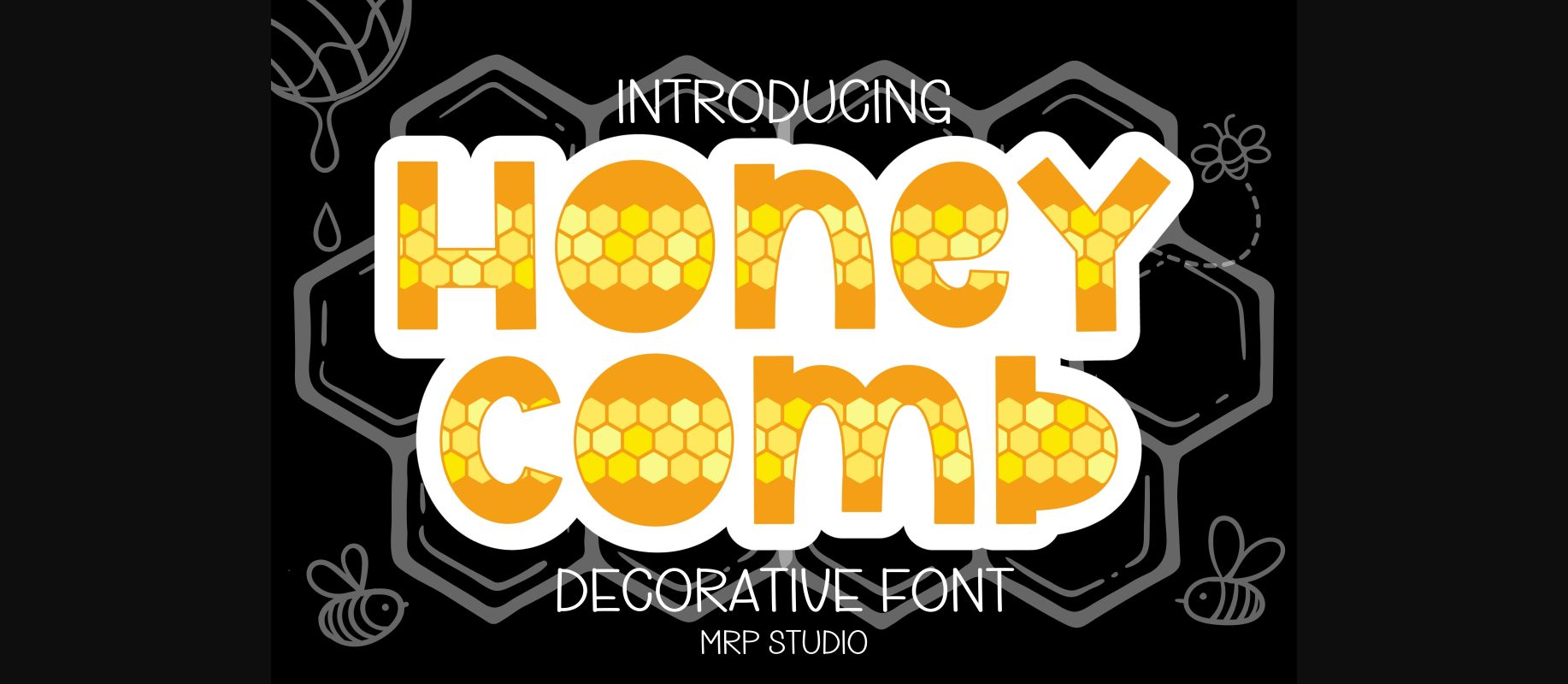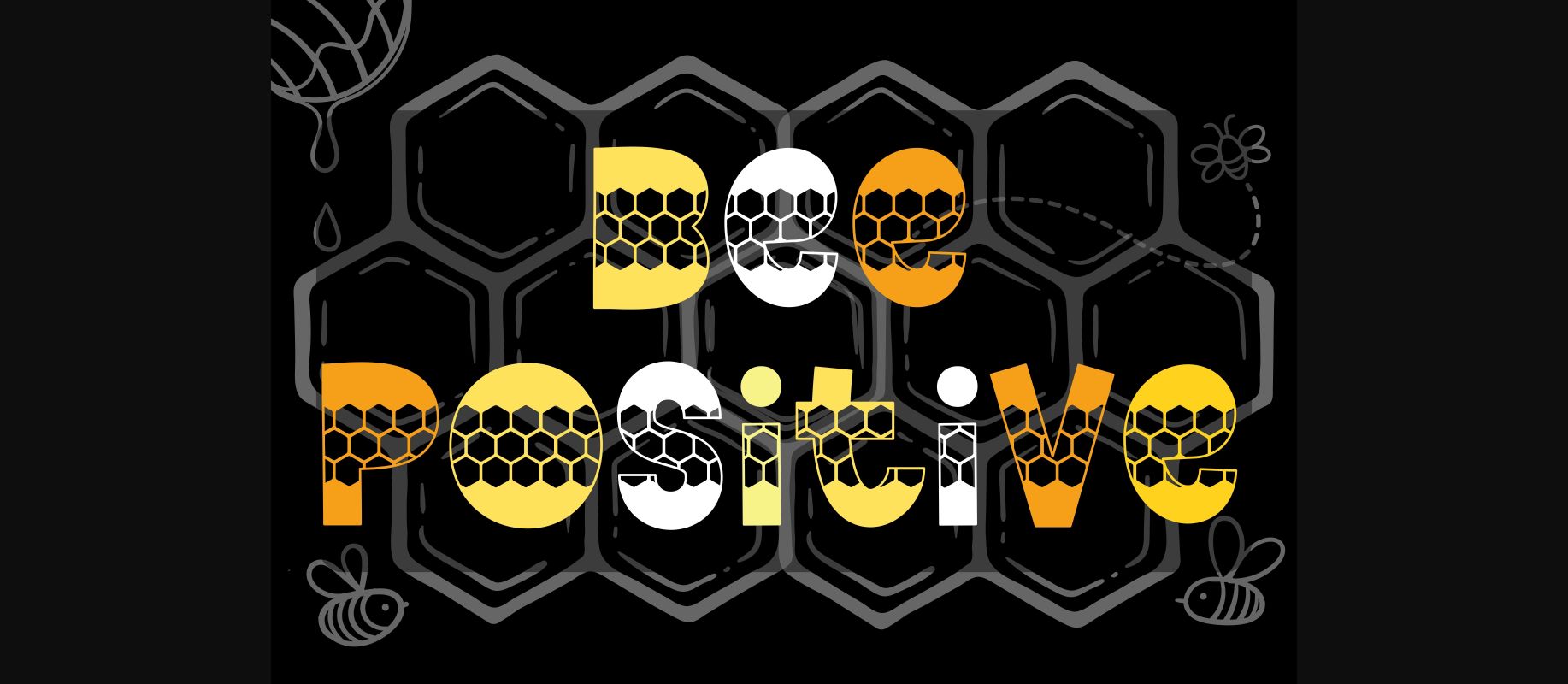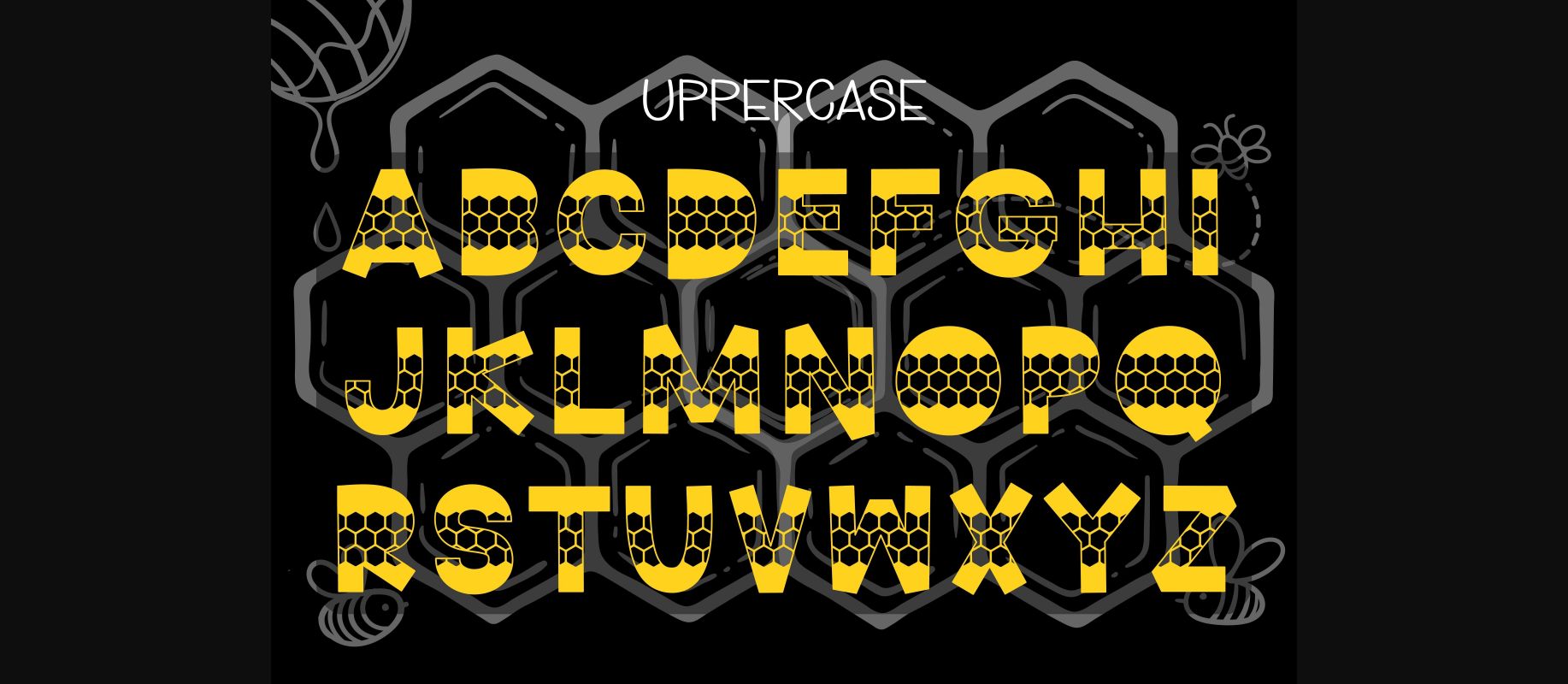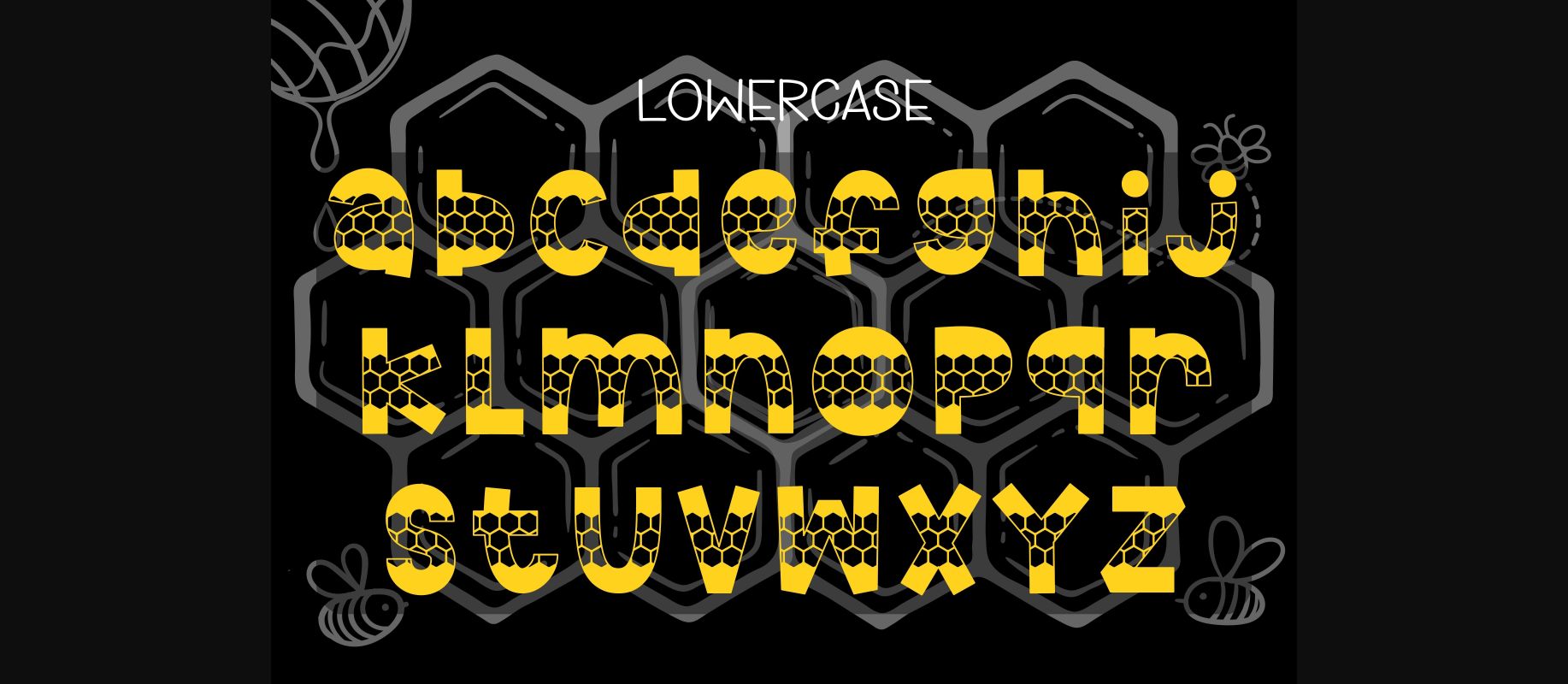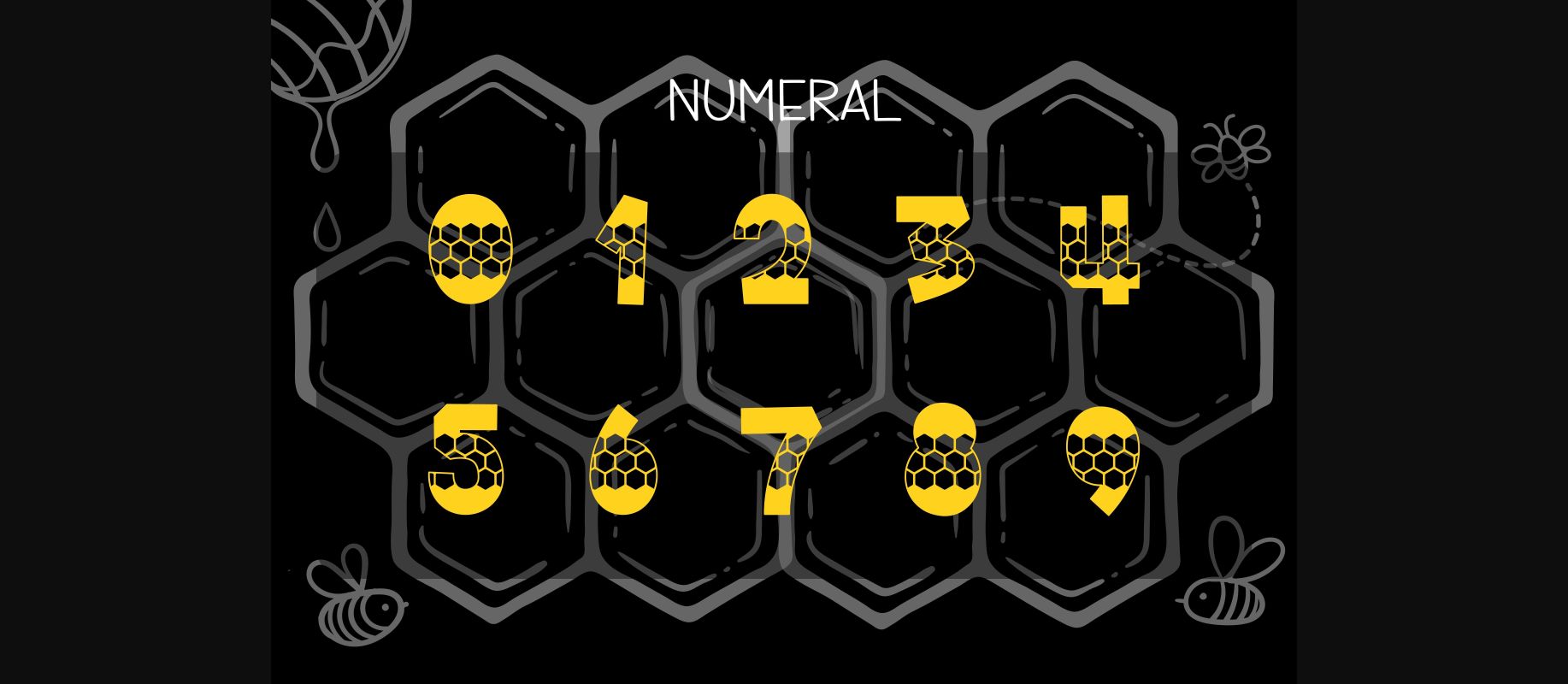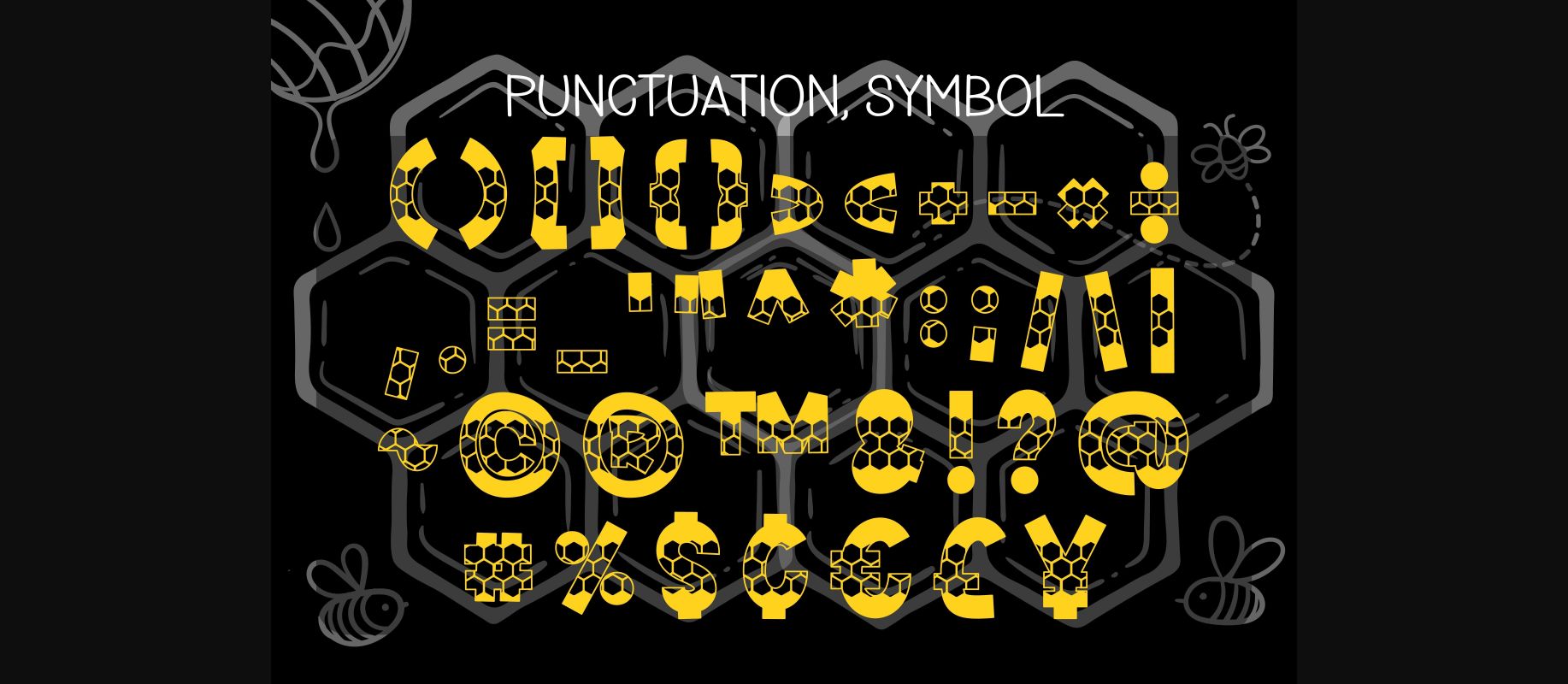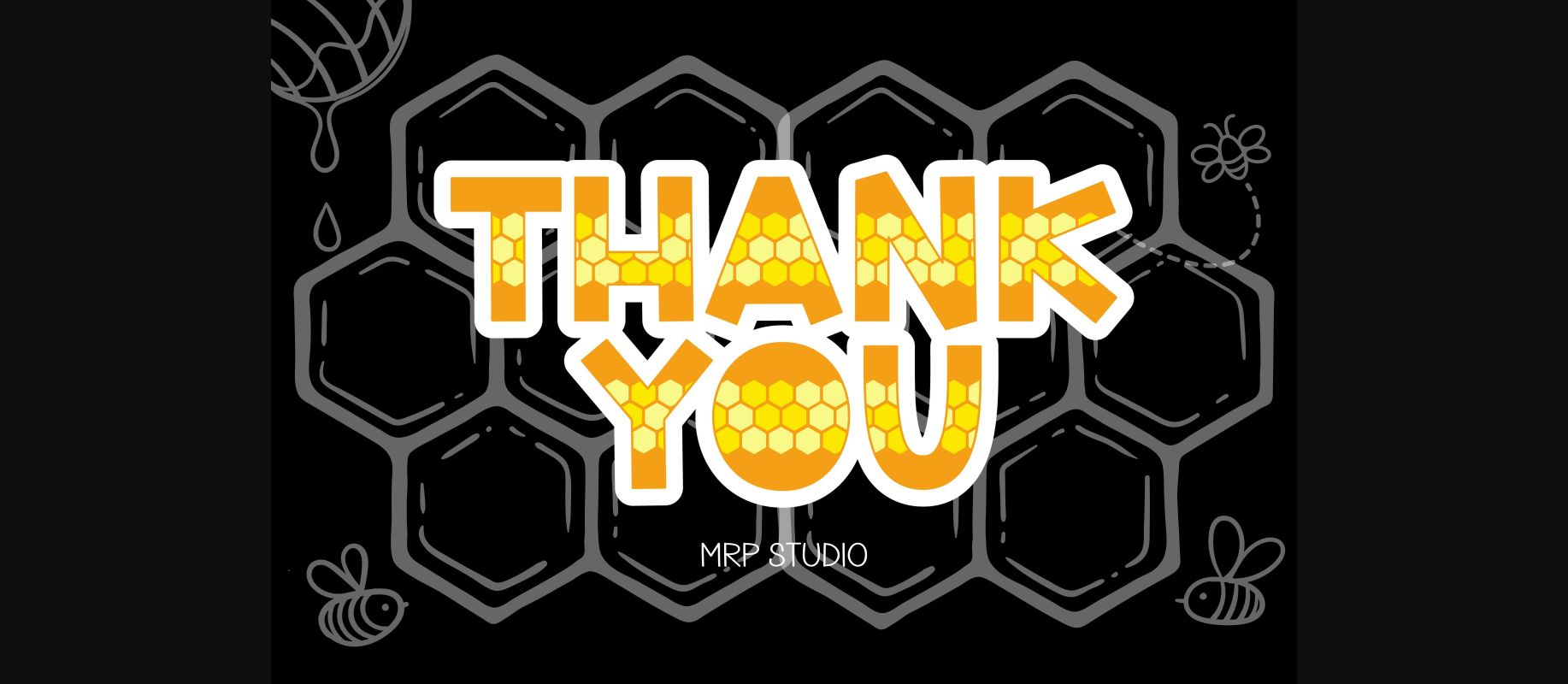
Honeycomb Font
About Honeycomb Font
Meet the stunning “Honeycomb” font! Each letter of this bright and beautiful decorative font features a unique honeycomb model that adds a touch of organic elegance to your designs. With its intricate details and vibrant color scheme, this font is perfect for creating eye-catching titles, logos, and more. Sweeten up your project with Honeycomb today!